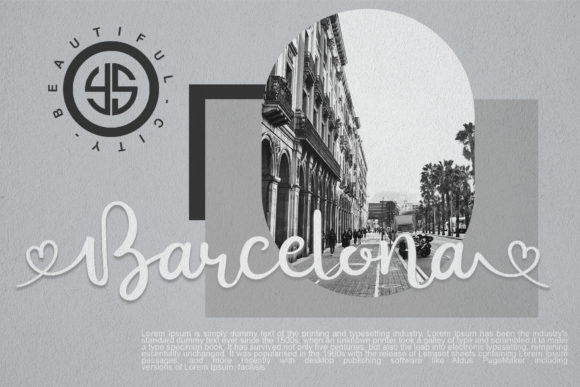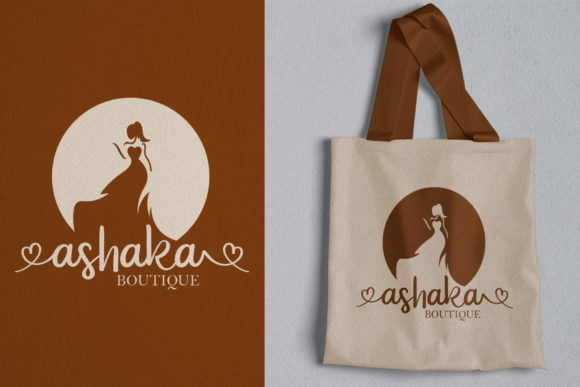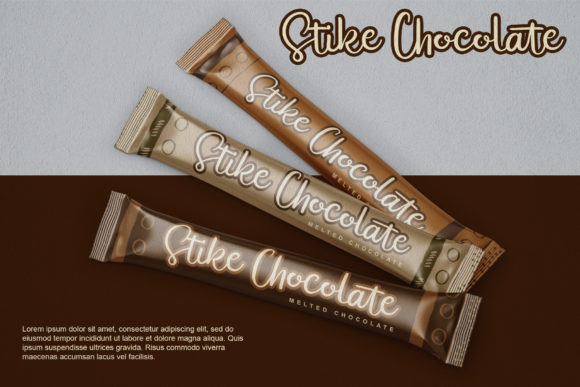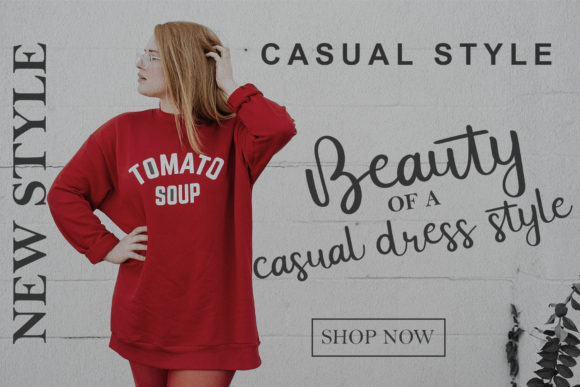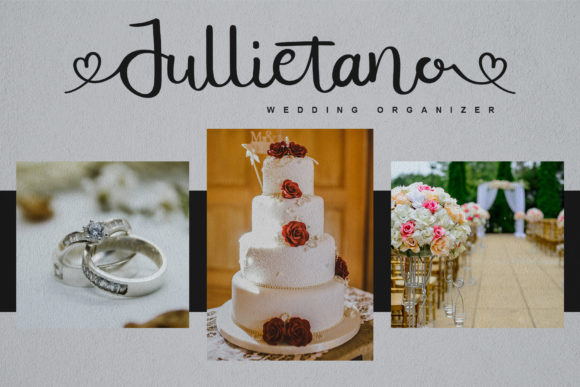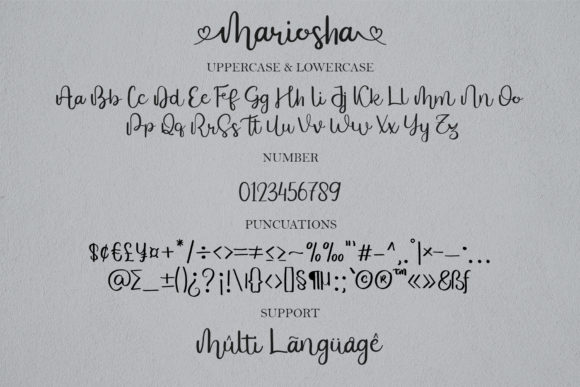
Introduction to Mariosha Font
As you sit at your desk, surrounded by sketches and scribbles, the perfect design moment strikes – the one where all the elements come together in harmony. You’re working on a luxury branding project, and you need a font that exudes elegance and sophistication. That’s when you remember the Mariosha Font, a romantic and sweet calligraphy typeface that adds a touch of luxury to any design project.
The Mariosha Font is more than just a pretty face; it’s a valuable resource for designers looking to elevate their creative projects. With its PUA-encoded characters, you can access all the amazing glyphs and ligatures with ease, making it perfect for those who want to add a high-quality, professional touch to their work.
Key Features of Mariosha Font
- Unique, stylish design perfect for adding a touch of elegance to any project
Honest Review: Mariosha Font
I recently stumbled upon the Mariosha Font while searching for a unique design resource for a creative project. I was immediately drawn to its elegant and sophisticated look, perfect for a variety of design applications.
- ✨ Beautifully crafted letterforms with intricate details
- ✨ High-quality design suitable for both print and digital use
The Mariosha Font is a great choice for designers looking for a versatile and high-quality design resource. It’s perfect for projects that require a touch of elegance and sophistication.
- ⚠️ Limited language support, which may be a concern for designers working on multilingual projects
- ⚠️ May not be suitable for designs that require a transparent background
Overall, I’m impressed with the Mariosha Font. Its unique design and high-quality construction make it a valuable addition to any designer’s toolkit.
Tips for Getting the Most Out of Mariosha Font
Use the Mariosha Font on a transparent background to create a creative and eye-catching design. Experiment with different font sizes and colors to add depth and visual interest to your project.
The Mariosha Font is ideal for use in creative projects such as logos, posters, and social media graphics. Its high quality and versatility make it a great addition to any design resource.